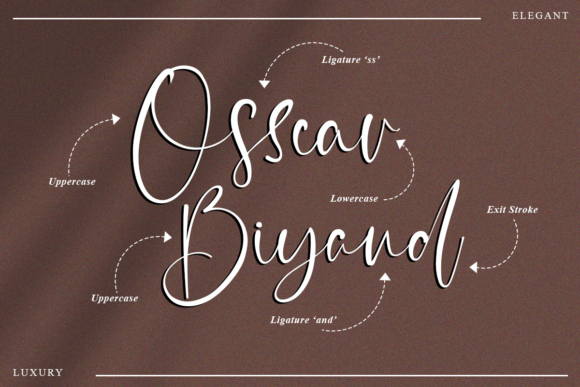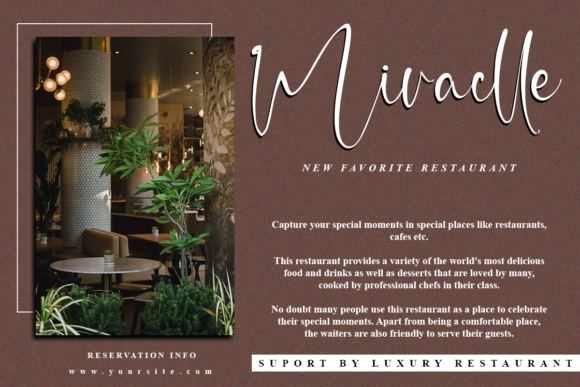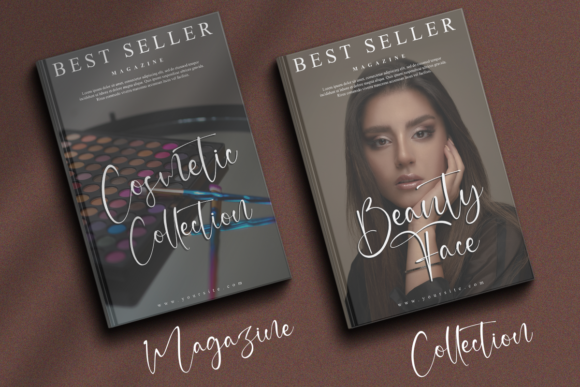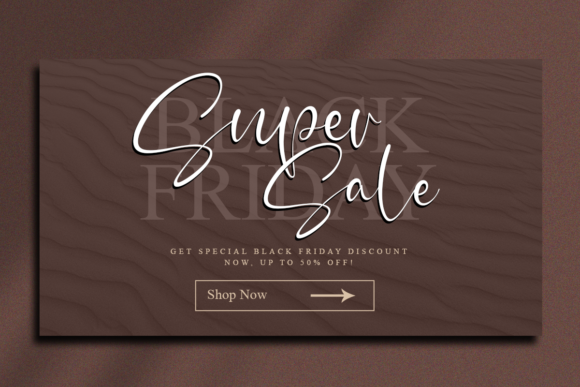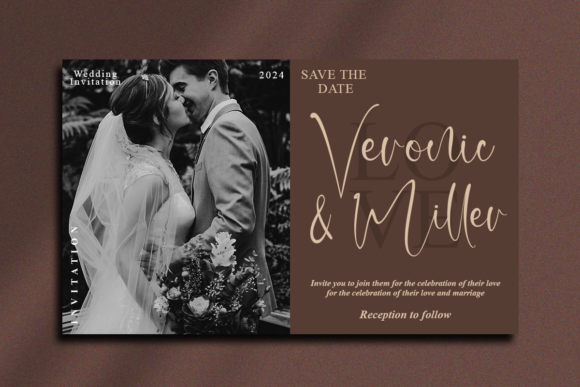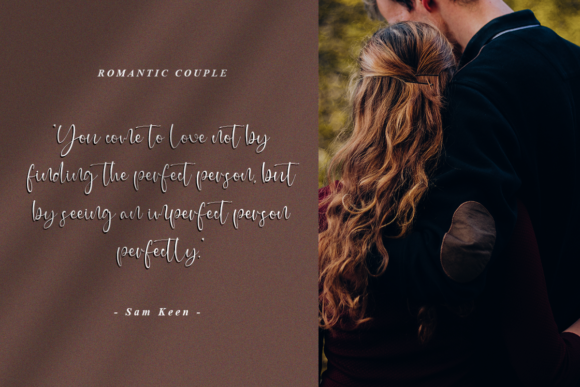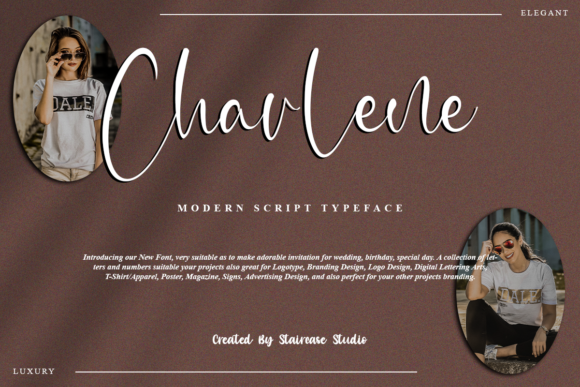
Introducing Charlene Font: Elevate Your Creativity with Elegance
Are you a designer, crafter, or DIY enthusiast looking for a font that can add a touch of magic to your creative projects? Look no further than Charlene Font, a beautiful script font that combines elegance with a whimsical flair. In this article, we’ll explore the features and benefits of Charlene Font, and how it can help you turn your ideas into stunning works of art.
What is Charlene Font?
Charlene Font is a carefully crafted script font that is designed to bring a touch of sophistication and elegance to your creative projects. With its flowing lines and delicate curves, Charlene Font is perfect for adding a personal touch to your designs, whether you’re working on a DIY project, creating social media content, or designing marketing materials.
Key Features of Charlene Font
- Elegant Script Design: Charlene Font features a beautiful script design that is both elegant and refined. Its flowing lines and delicate curves make it perfect for creating stunning calligraphy scripts and artistic text.
- Magical Touch: With its whimsical flair, Charlene Font adds a touch of magic to your creative projects. Whether you’re designing for Instagram, creating DIY crafts, or working on a marketing campaign, Charlene Font is sure to captivate your audience.
- Versatile: Charlene Font is a versatile font that can be used for a wide range of creative projects, from social media graphics to marketing materials, and even DIY crafts.
Uses for Charlene Font
Charlene Font is a versatile font that can be used for a wide range of creative projects, including:
- Instagram Graphics: Add a touch of elegance to your Instagram graphics with Charlene Font. Use it to create stunning quotes, captions, and stories that will captivate your audience.
- DIY Projects: Charlene Font is perfect for DIY projects, such as crafting, scrapbooking, and card making. Add a personal touch to your creations with this beautiful script font.
- Marketing Materials: Use Charlene Font to create stunning marketing materials, such as brochures, flyers, and posters. Its elegant design is sure to make your brand stand out.
- Calligraphy Scripts: Charlene Font is perfect for creating beautiful calligraphy scripts. Use it to add a touch of elegance to your artwork, quotes, and phrases.
Tips for Using Charlene Font
Here are some tips for using Charlene Font in your creative projects:
- Experiment with Colors: Charlene Font looks stunning in a variety of colors. Experiment with different colors to find the one that works best for your project.
- Play with Sizes: Charlene Font can be used in a range of sizes, from small captions to large headings. Experiment with different sizes to find the one that works best for your project.
- Combine with Other Fonts: Charlene Font can be combined with other fonts to create stunning contrast and visual interest. Experiment with different font combinations to find the one that works best for your project.
| Font Name | Charlene Font |
| Author | staircasestudio20 |
Charlene Font is a beautiful script font that is perfect for designers, crafters, and DIY enthusiasts looking to add a touch of elegance to their creative projects. With its flowing lines, delicate curves, and magical touch, Charlene Font is sure to turn any creative idea into a true piece of art. Whether you’re working on a DIY project, creating social media content, or designing marketing materials, Charlene Font is a versatile font that can help you achieve your creative goals.